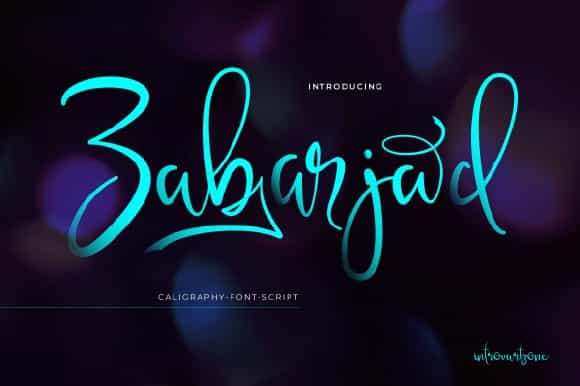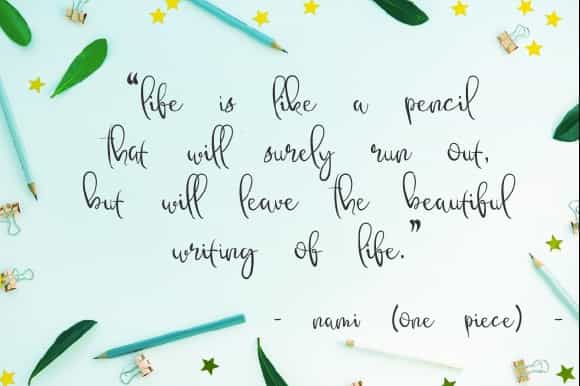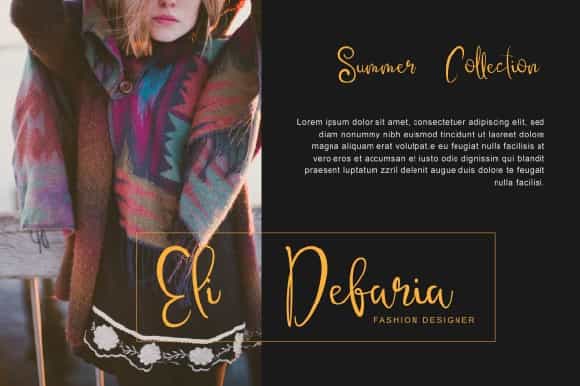
Presenting Zabarjad Font, a modern, flexible typeface inspired by hand lettered forms, with three full character sets including upper- and lower-case plus foreign characters. Lovely On Invitation like Greeting Cards, Branding Materials, Business Cards, Quotes, Posters And More!!